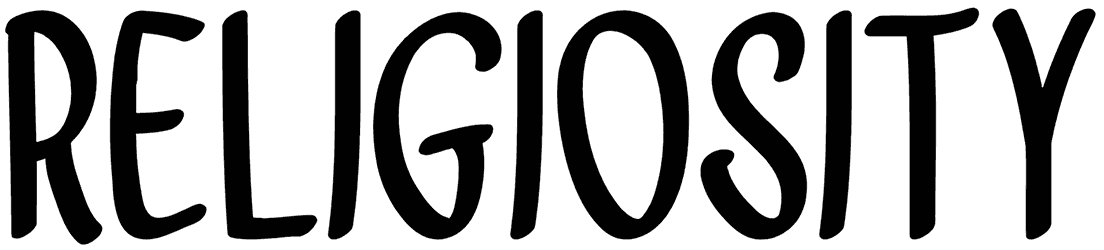
Religiosity Font
Designed byMd Shohail Bhuian
If you are looking for a handwritten font with a cute, funny display, then search no longer. Religiosity is an all-caps school font that doesn’t support numbers, but it can grab all attention easily with its bold texture and good readability. You can use this font for product packaging, social media, movie posters, comic books, and stationery designs.